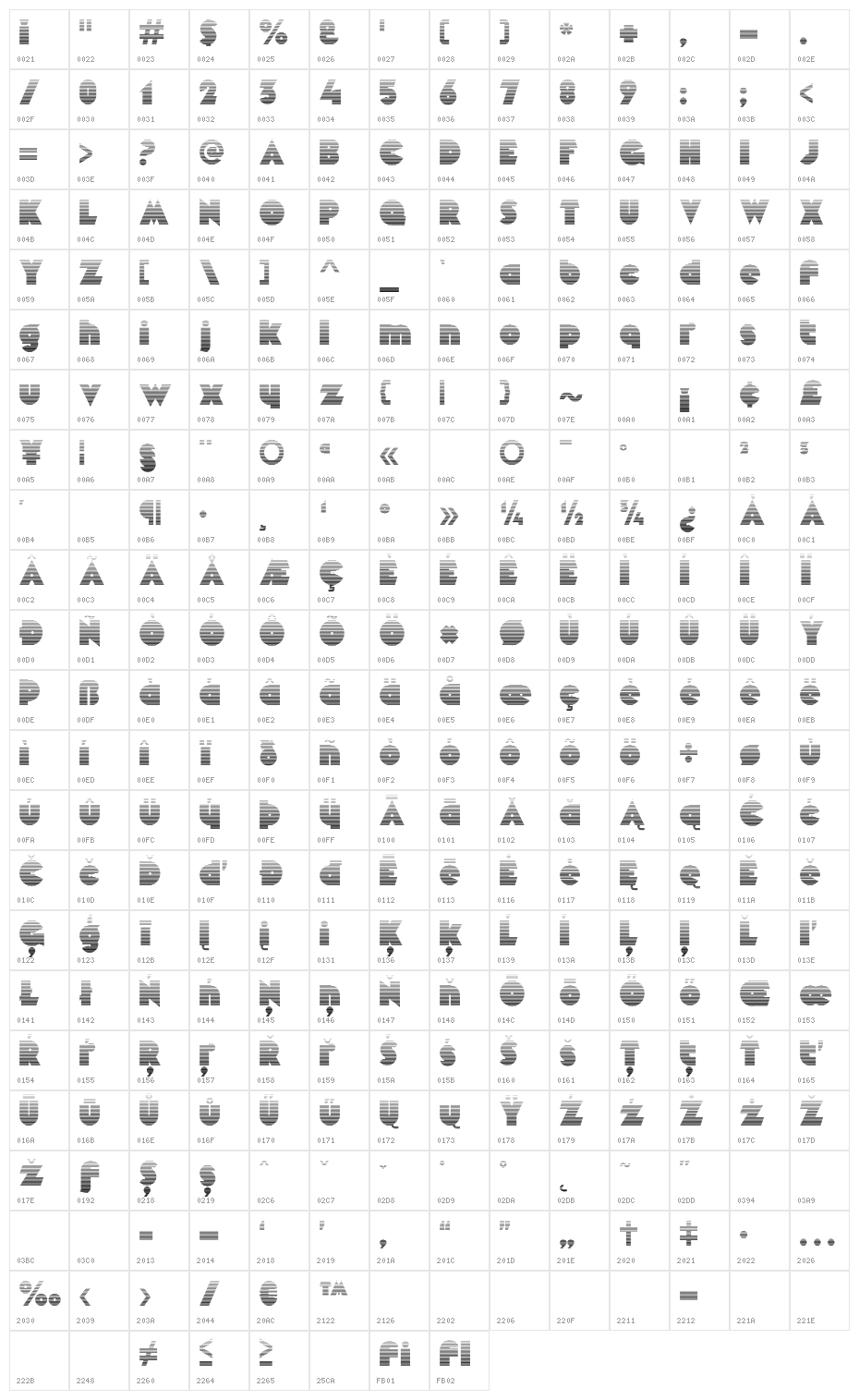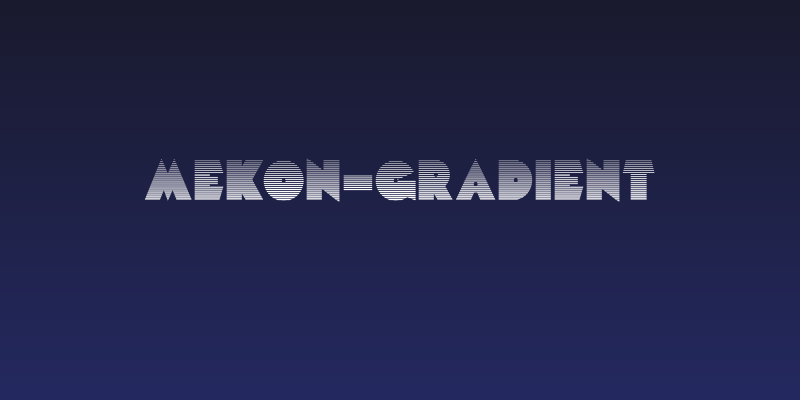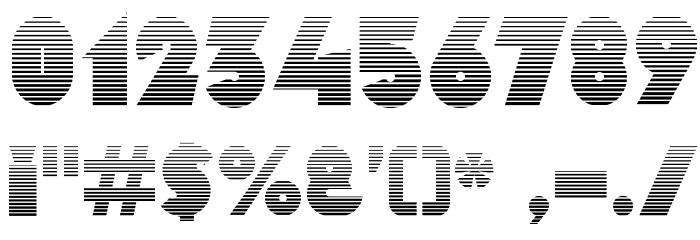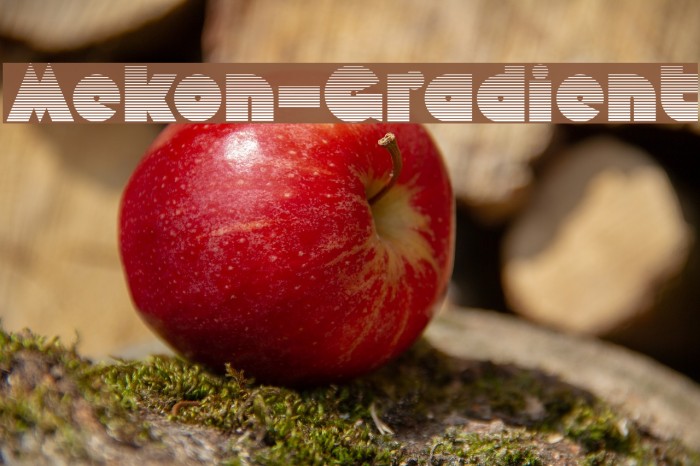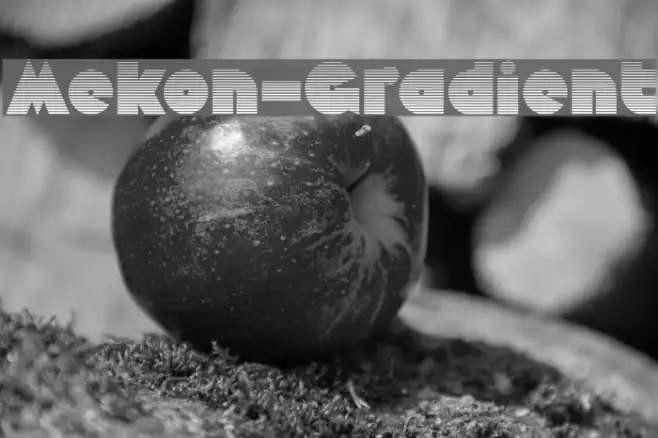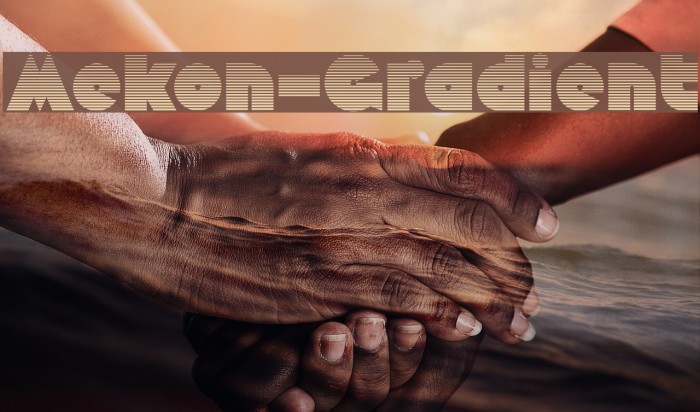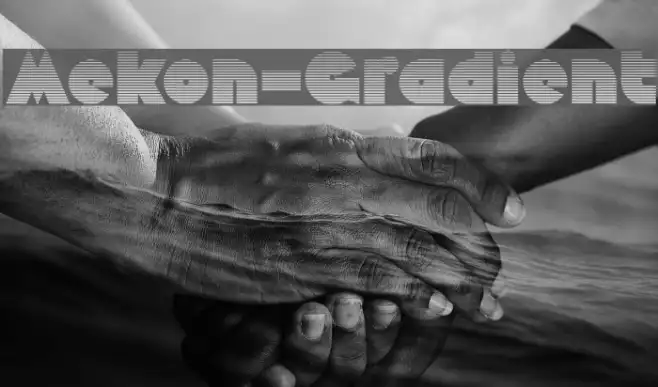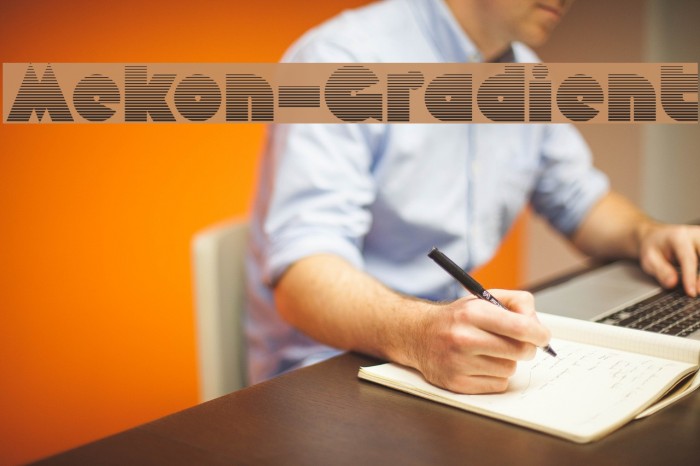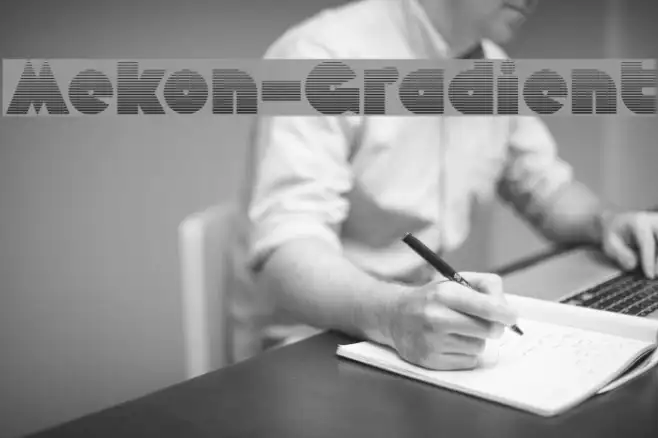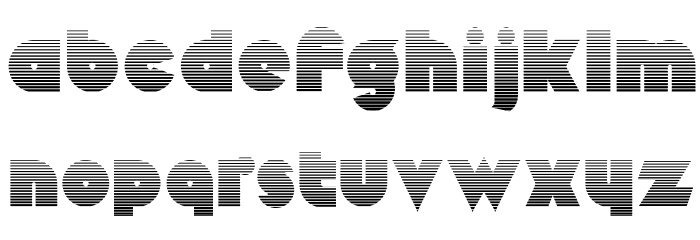
Mekon-Gradient Font
Mekon-Gradient Description
This font features a bold and striking design with a unique gradient effect created by horizontal lines that vary in thickness. The uppercase and lowercase letters maintain a consistent style, with each character exhibiting a strong geometric form. The numbers and special characters are equally bold, ensuring a cohesive look across all elements. The font's distinct appearance makes it ideal for eye-catching designs where a modern and dynamic feel is desired. Its structured yet playful style can add a creative edge to various projects.
| Proposed Projects | Ideal for posters, logos, headlines, and any design requiring a modern, eye-catching font. |